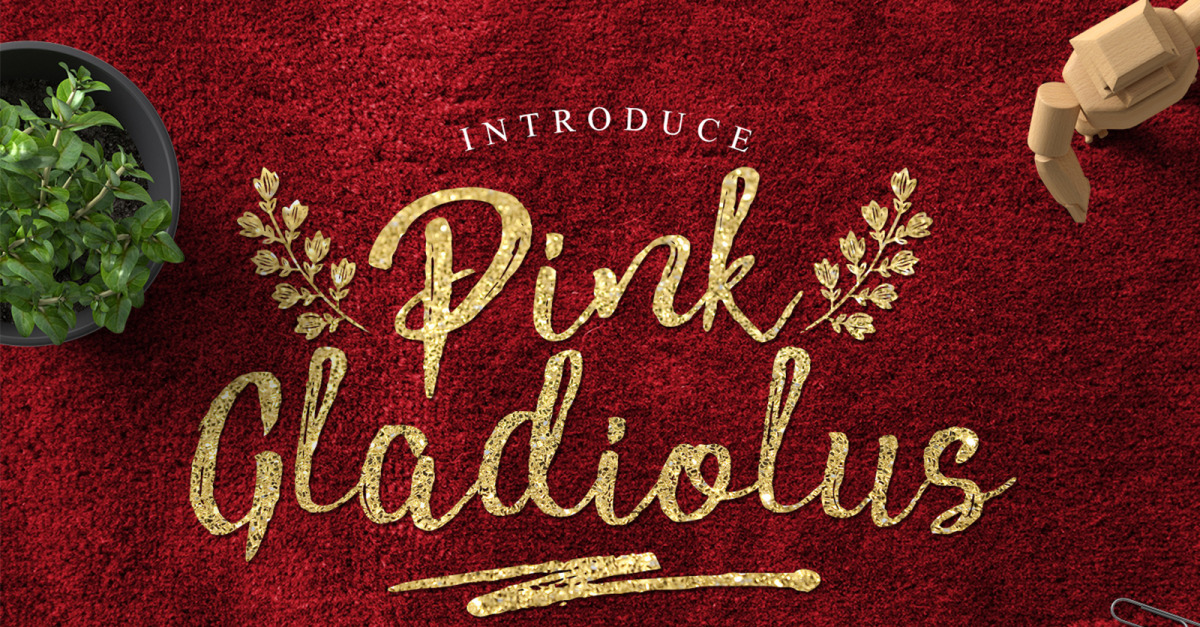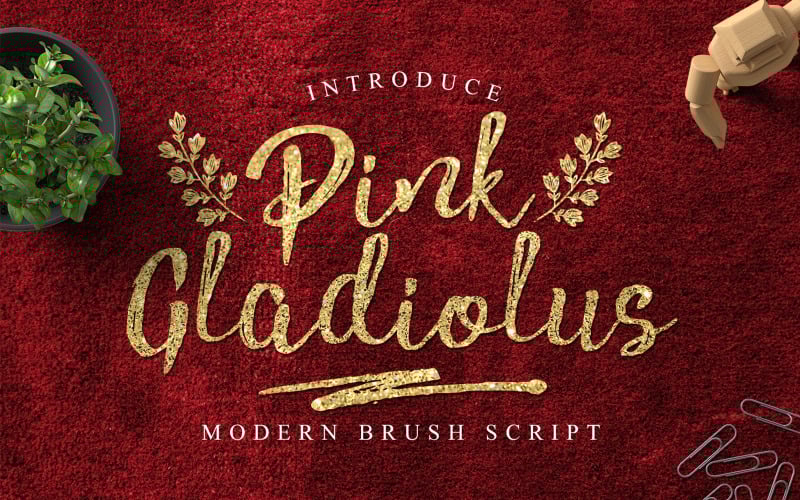
Pink Gladiolus - Brush Script
Really excited to introduce Pink Gladiolus is a modern brush script! Pink Gladiolus perfect for all your designs project, event and more.